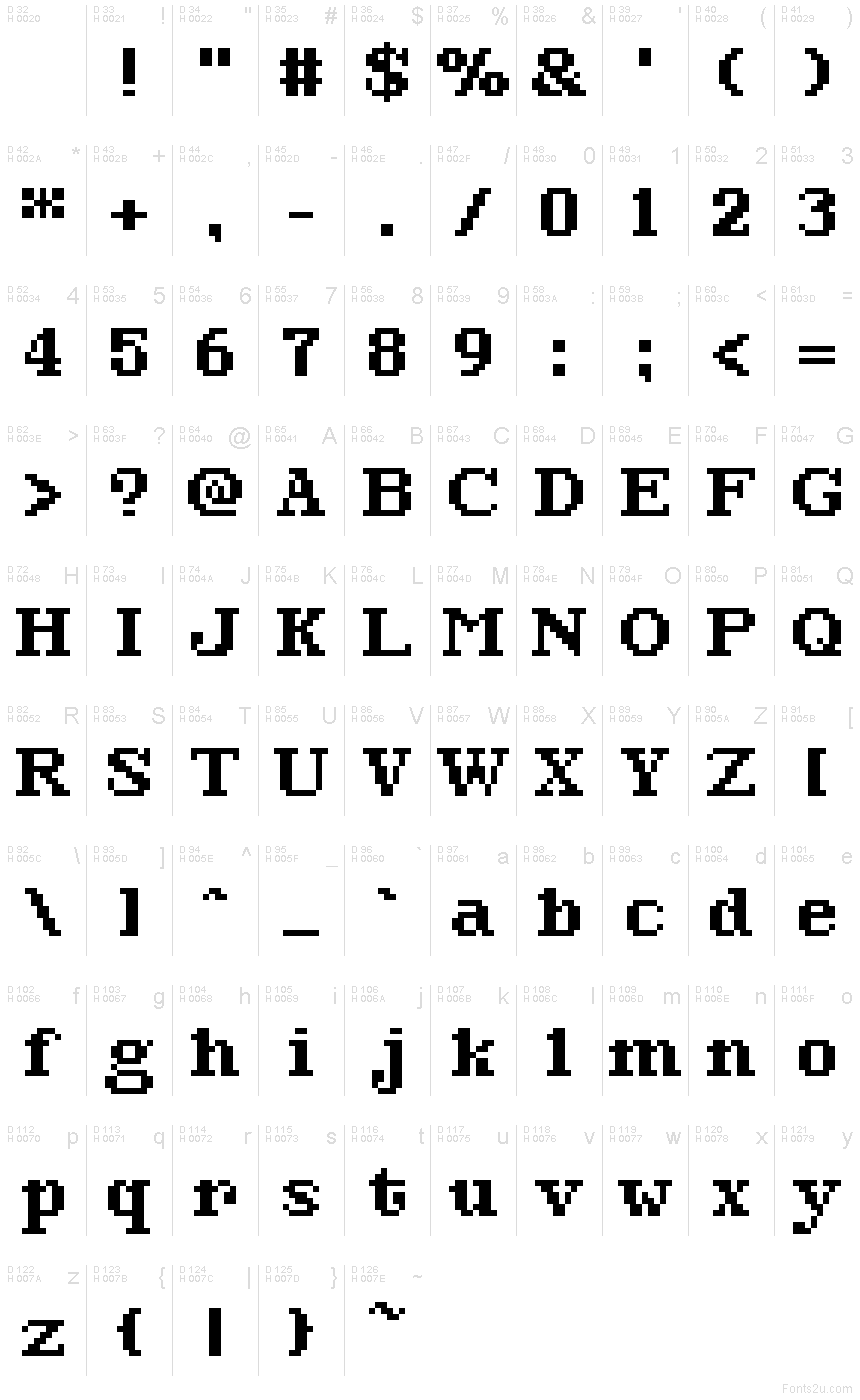
Belanidi Serif
Belanidi Serif is an 8-10 pixel style Serif font inspired by IllusionSerif's Bold style. To be precise, the plan is 10px for CJK scripts, and 8px for others. Pay attention for this is a compromise plan.
The original purpose of this font is to adapt the full language text of Minecraft, as well as personalized extensions (such as the Kana Extension).
“IllusionSerif-Bold“ for reference.